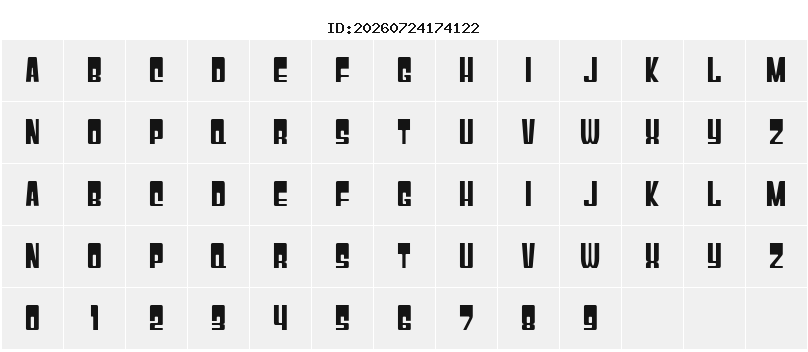
Gyparody Preview
• Font Name: Gyparody
• Full Font Name: Gyparody
• Designer: Ray Larabie
About Gyparody.ttf
Gyparody.ttf is a modern, elegant sans-serif font designed for ultimate readability and visual harmony. Perfect for branding, headlines, web design, and print materials.